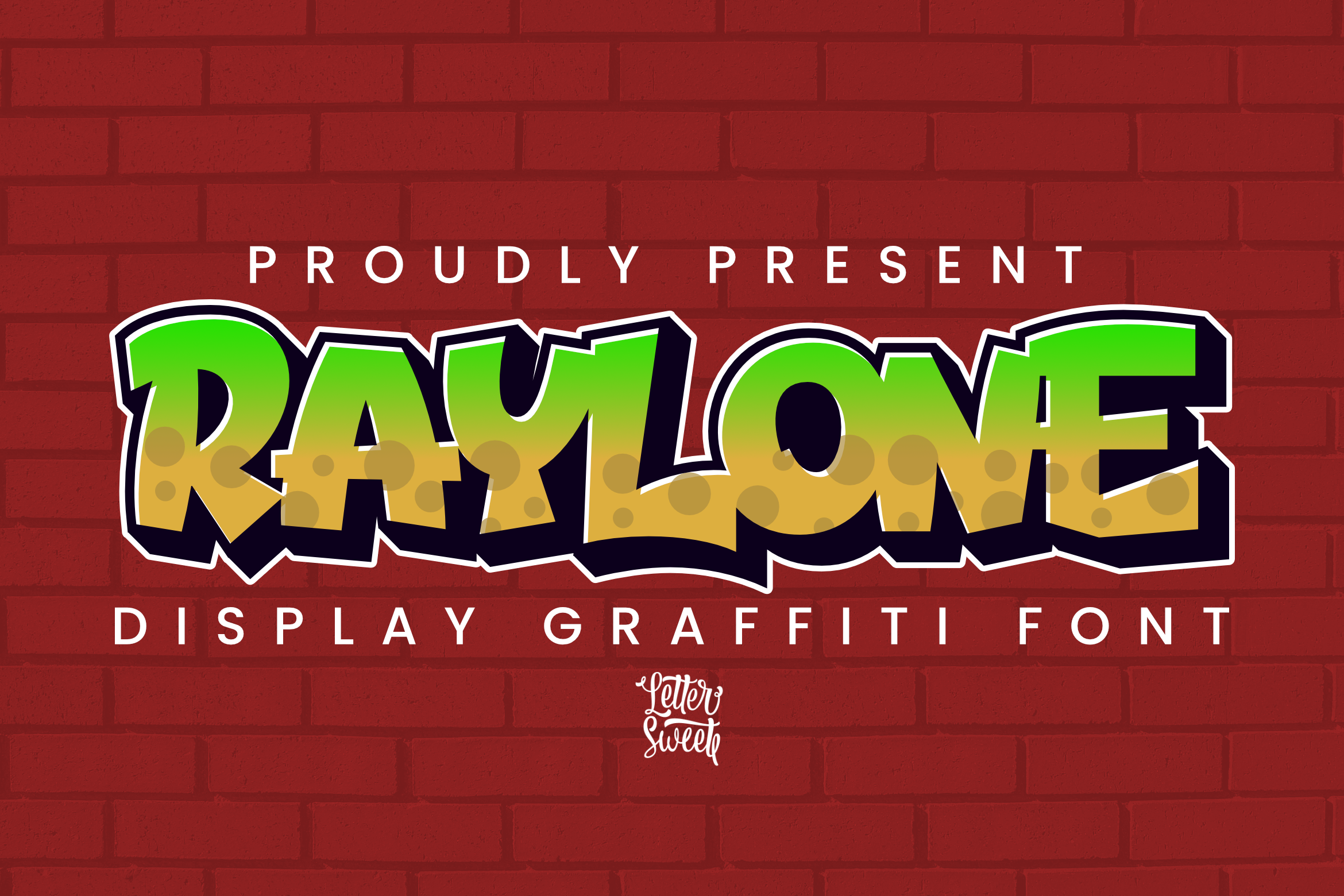
Raylone - Graffiti Display Font
About Raylone - Graffiti Display
Unleash the essence of street chic into your creative endeavors with Raylone, an edgy outlined display font. Infusing a cool, urban vibe, Raylone is perfect for enhancing the sophistication and contemporary appeal of your casual designs. You’re bound to fall in love with the stellar outcome that this unique, city-inspired font can bring about.